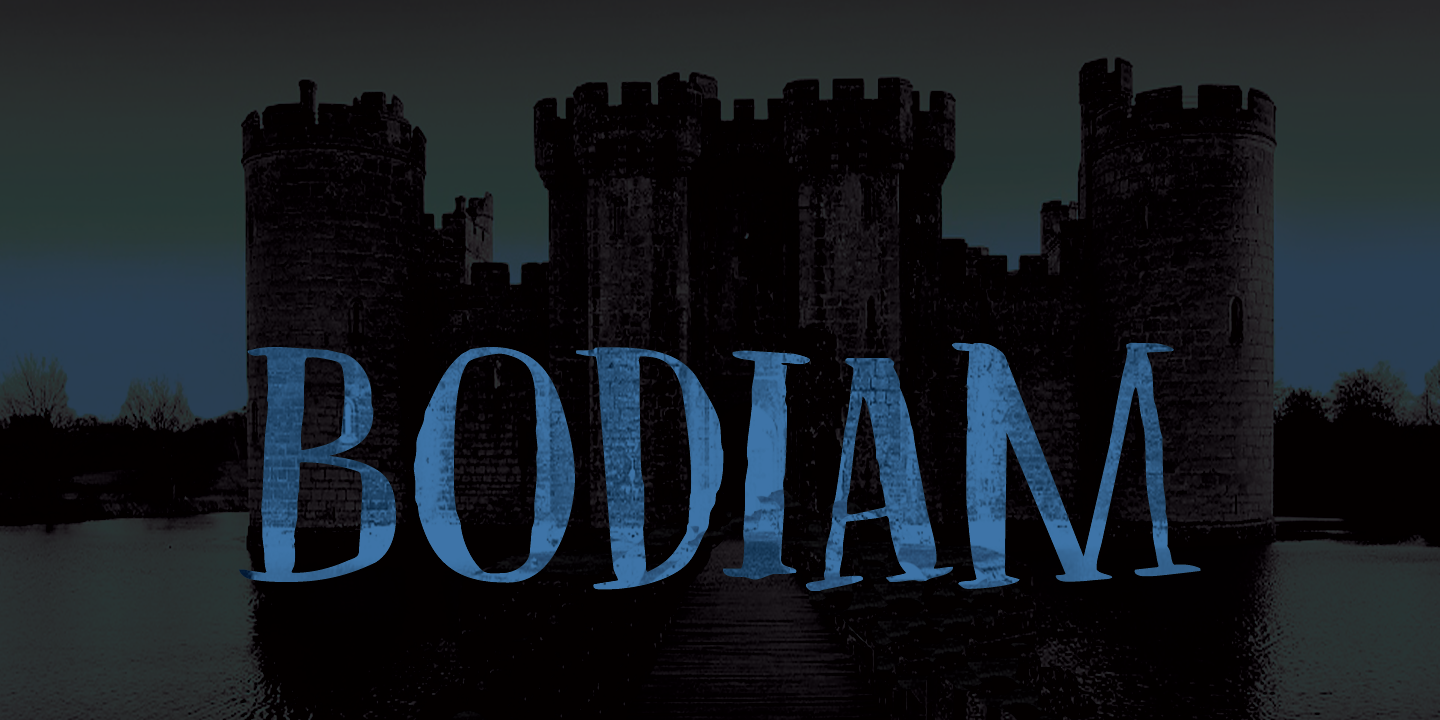
Bodiam Font is a regal and decorative serif typeface inspired by historical elegance and vintage typography. It’s perfect for wedding invitations, luxury branding, boutique packaging, book covers, restaurant menus, and editorial titles that demand a touch of classic refinement.
What makes Bodiam Font Free Download truly exciting is its majestic and ornate character. With graceful curves, stylized serifs, and a stately presence, Bodiam feels like it belongs in a royal manuscript or on the label of a fine wine. It’s a font that tells stories — literally and visually.
The Bodiam Font family includes multiple styles such as Regular, Italic, and Outline, each capturing the same timeless charm while offering flexibility for different creative applications. Whether you want subtle elegance or full-blown decorative flair, Bodiam has you covered.
From formal event designs to high-end packaging and classy editorial spreads, Bodiam Font Free Download adds sophistication and storytelling power to your work. It’s more than just a font — it’s a statement of style and grace that elevates any design it touches.